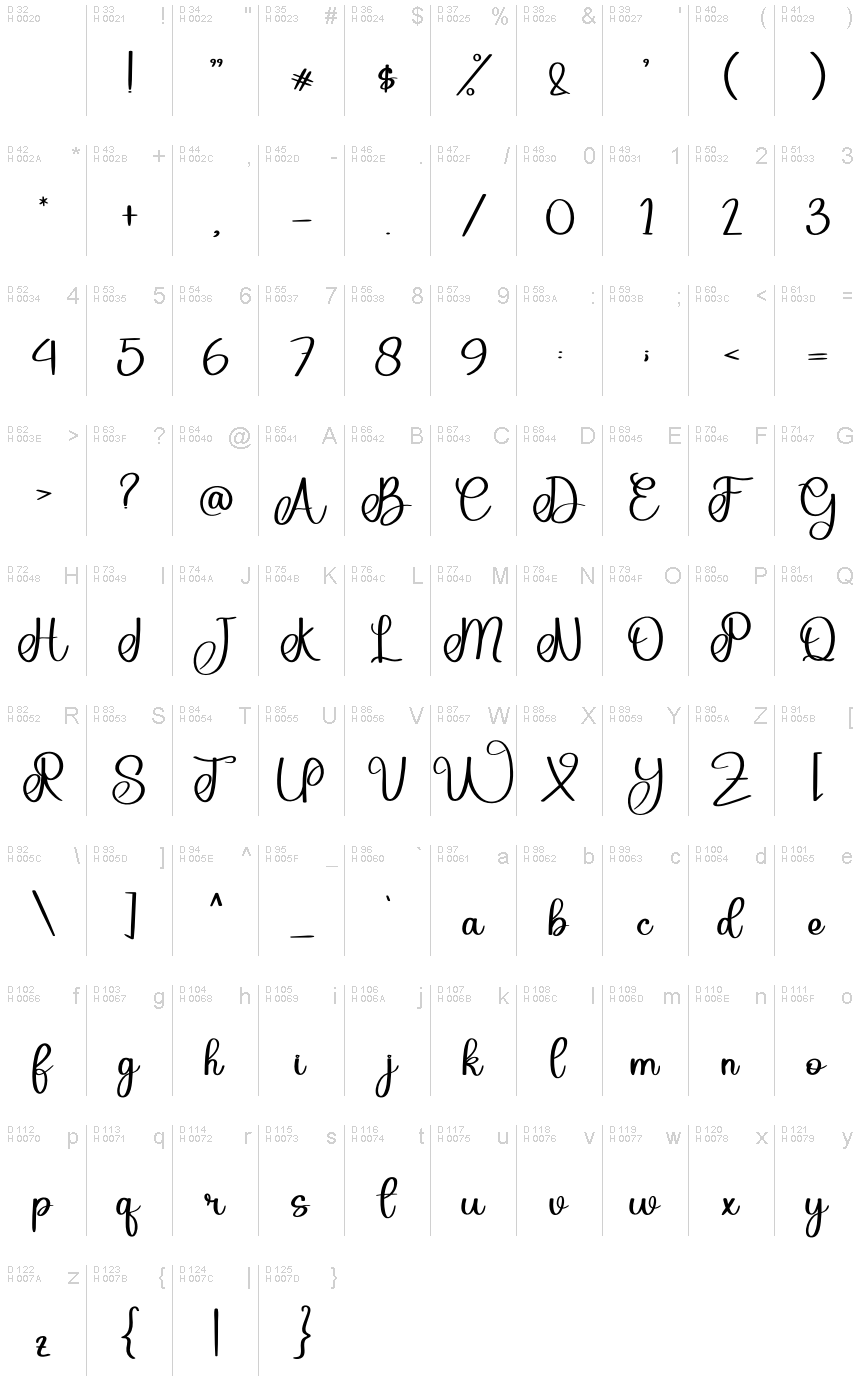
Sweet Yolanda
Sweet Yolanda, designed by Etik Fatimah, exudes charm with its handwritten style that mimics the grace of personal calligraphy. The font dances with casual elegance, featuring fluid strokes that suggest a sense of intimacy and warmth. Its letters possess a gentle sway, reminiscent of a soft breeze through willow branches, inviting readers into a story or message penned with care.
The aesthetic appeal of Sweet Yolanda lies in its ability to capture the human touch within its characters, making it an ideal choice for projects that require a personal and artisanal feel. This font shines in contexts such as wedding invitations, heartfelt greeting cards, boutique branding, and any design space where the beauty of human connection is celebrated. Sweet Yolanda's organic allure helps create designs that speak directly to the heart.